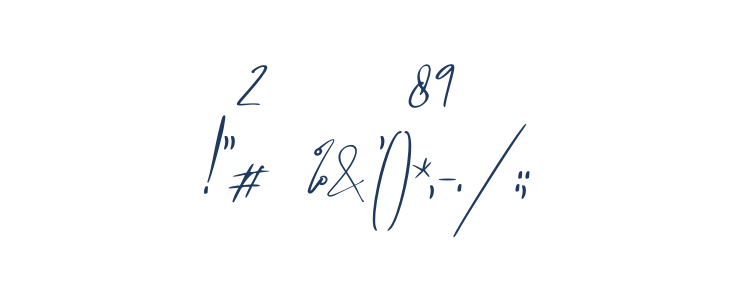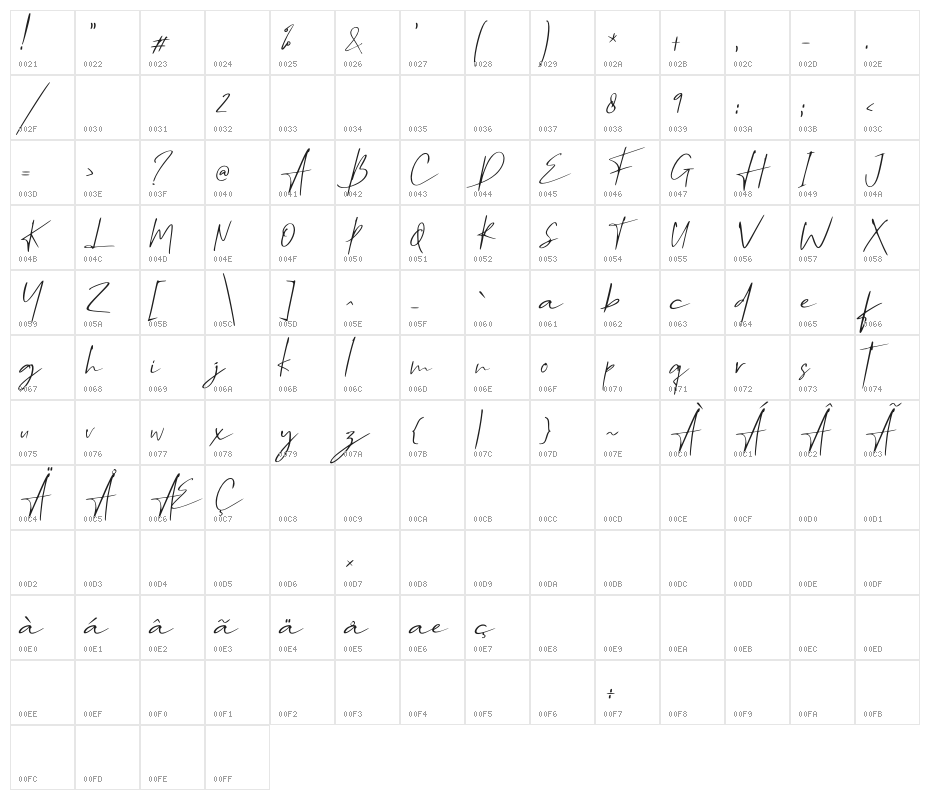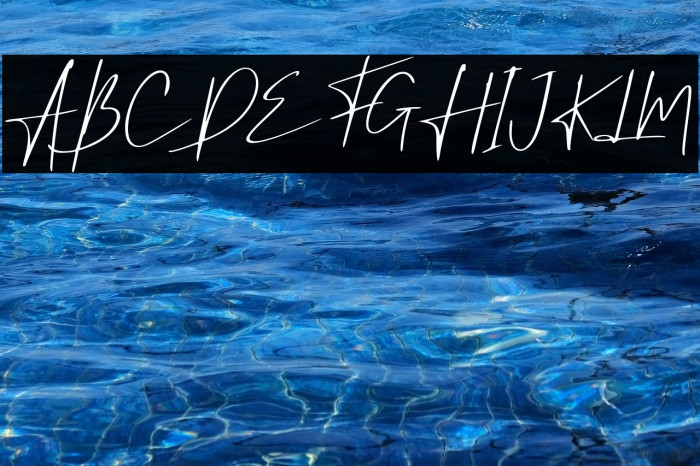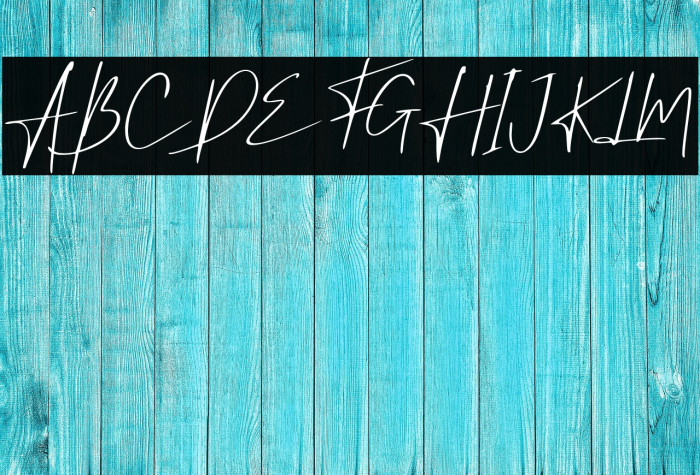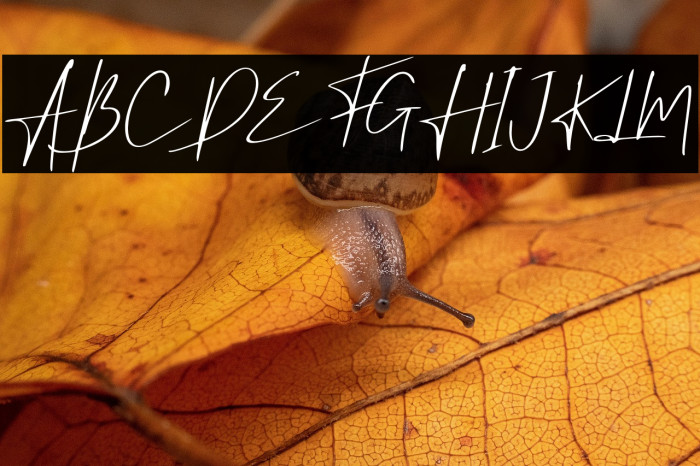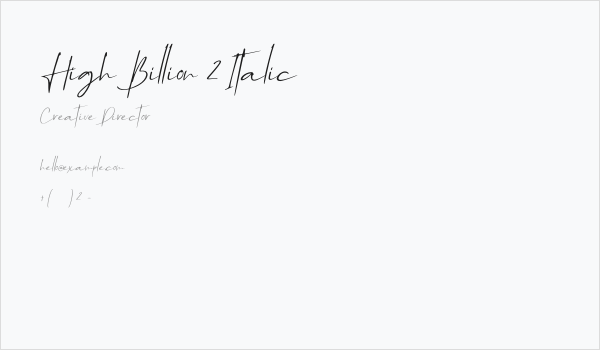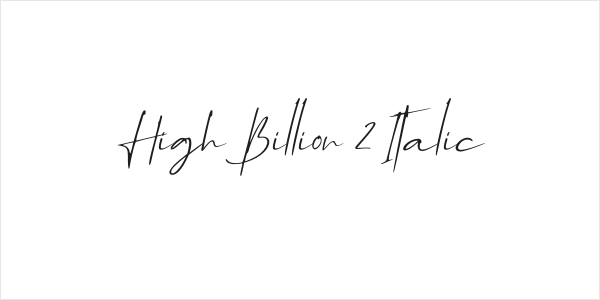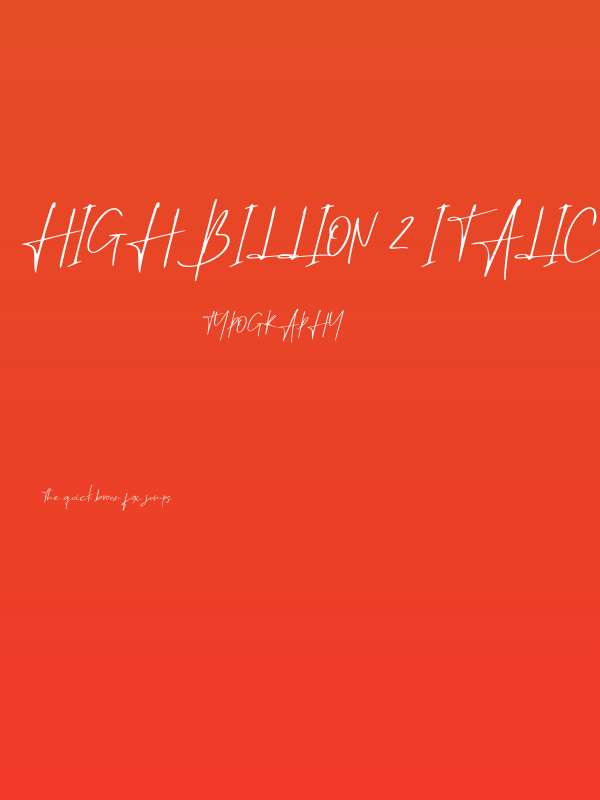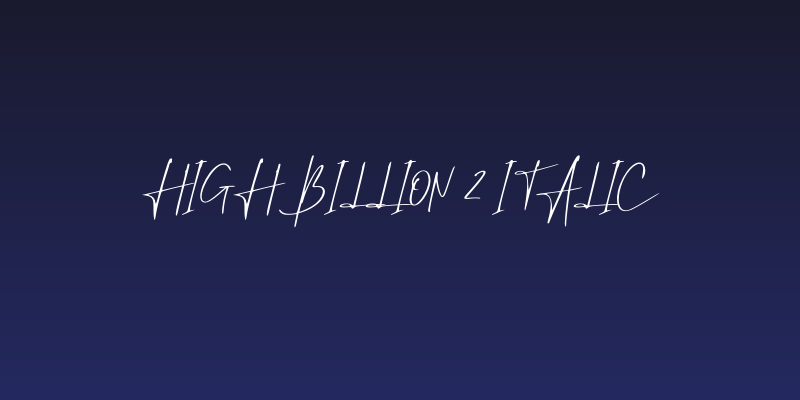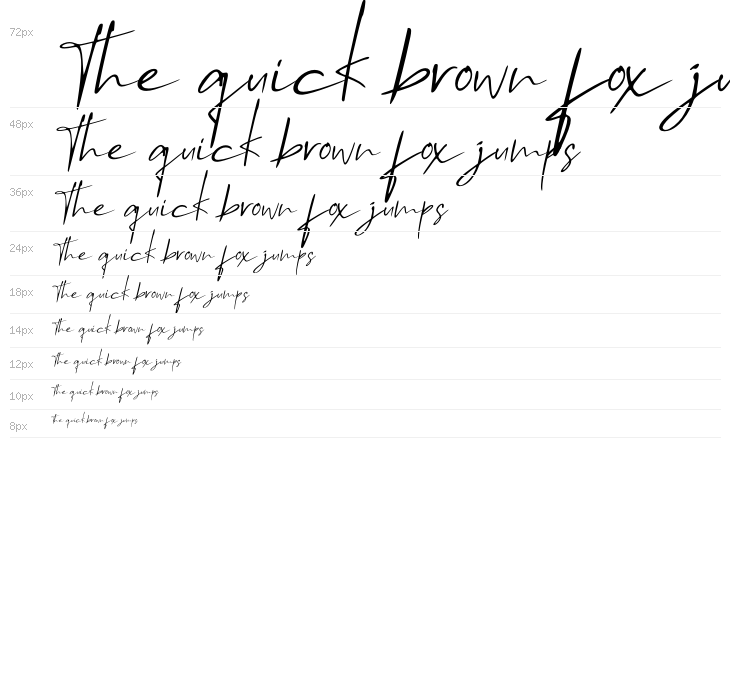
High Billion 2 Italic Font
High Billion 2 Italic Description
This font exudes a dynamic and energetic style, characterized by its handwritten, cursive appearance. The letters are elongated and slightly slanted, giving a sense of motion and fluidity. The strokes vary in thickness, adding a lively and spontaneous feel. The uppercase letters are bold and prominent, while the lowercase letters maintain a consistent flow, enhancing readability. The numerals and special characters follow the same cursive style, ensuring a cohesive look across all elements. This font is ideal for projects that require a personal touch or an artistic flair.
| Use Case | Logos, Artistic projects, Invitations |
| Proposed Projects | Ideal for invitations, greeting cards, artistic posters, and branding materials that seek a personal or creative touch. |